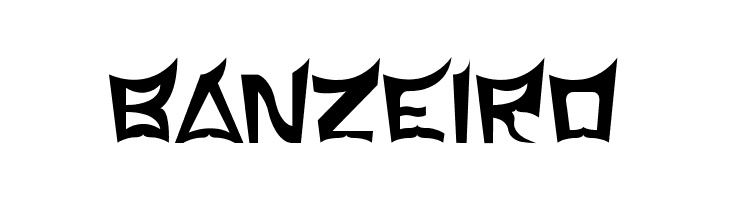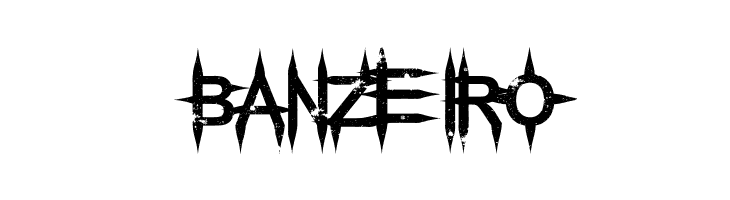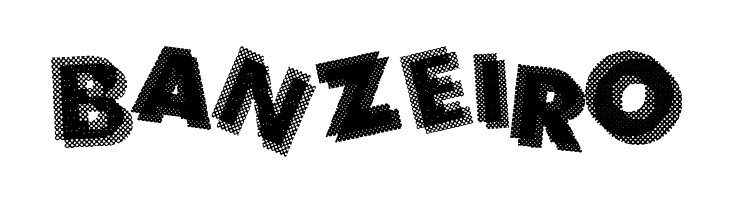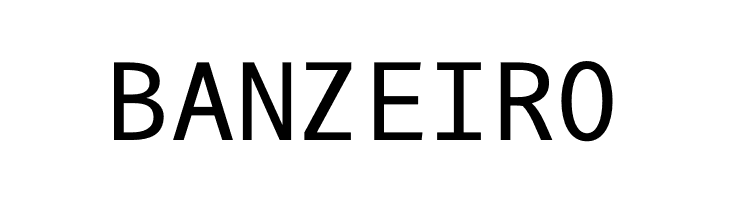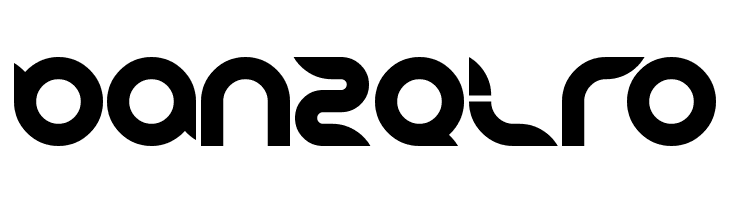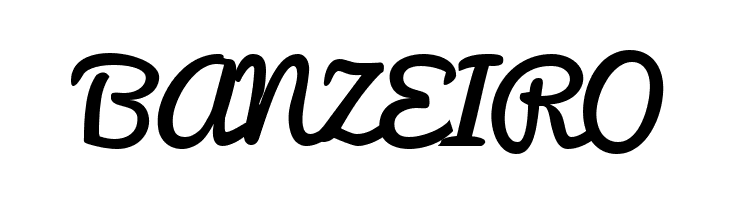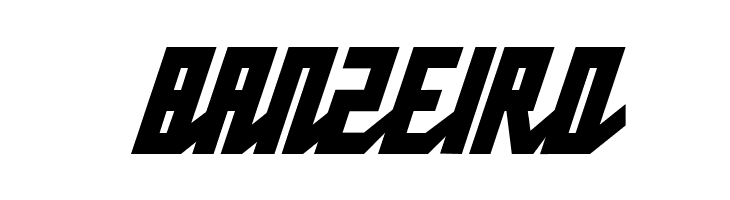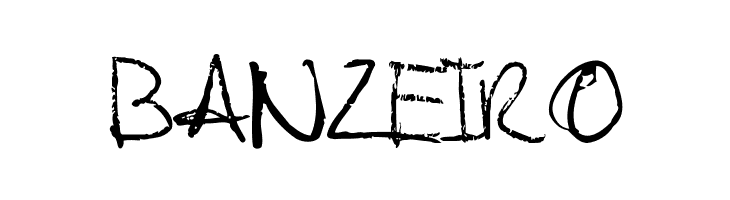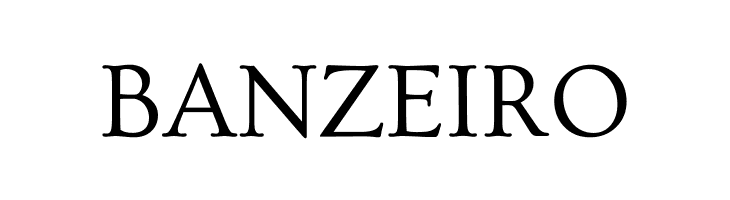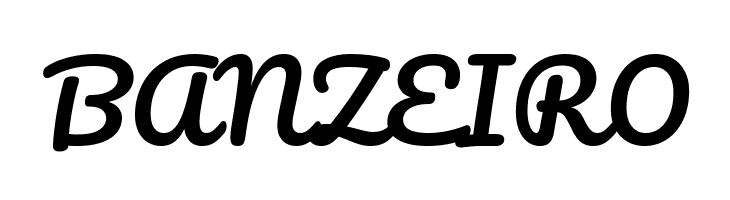
A bold, geometric sans-serif font with a dynamic, modern style.
A bold, impactful font with a unique lightning bolt motif in the letter 'N'.
A bold, italicized font with a dynamic and edgy style, featuring a unique lightning bolt motif.
A bold, italic font with a modern, dynamic style and unique design elements.
A bold, oblique font with a dynamic and modern style.
A decorative font with UFO and alien spacecraft designs.
A classic serif font with elegant and refined strokes.
A modern, decorative font with interconnected, flowing characters.
A modern, flowing font with interconnected, cursive-like characters.
A clean, modern monospaced font with uniform stroke thickness and geometric design.
A bold, geometric font with sharp, angular shapes for a modern look.
A playful, flowing script font with bold, rounded strokes.
A playful, handwritten script font with smooth, interconnected characters.
A bold, geometric display font with a retro arcade-inspired style.
A bold, playful font with a retro gaming vibe and geometric shapes.
A bold, angular font with sharp edges and a geometric style.
A bold, brush-stroke style font with dynamic and expressive characters.
A bold, graffiti-inspired font with expressive, splattered characters.
A classic serif font with elegant serifs and medium contrast, ideal for sophisticated designs.
A vintage, decorative font with ornate, calligraphic letterforms and high contrast.
An elegant, calligraphic script font with ornate, flowing characters.
A textured, hand-drawn style font with an artistic and rugged appearance.
A bold, spiked, and distressed decorative font ideal for edgy designs.
A bold, distressed font with sharp edges and a grungy texture.
A bold, geometric font with a futuristic and abstract design.
A bold, angular font with a futuristic and edgy design.
A bold, condensed font with rounded edges and tight spacing.
A bold, italic, and condensed font with a modern and dynamic style.
A modern, condensed, and light font with geometric letterforms.